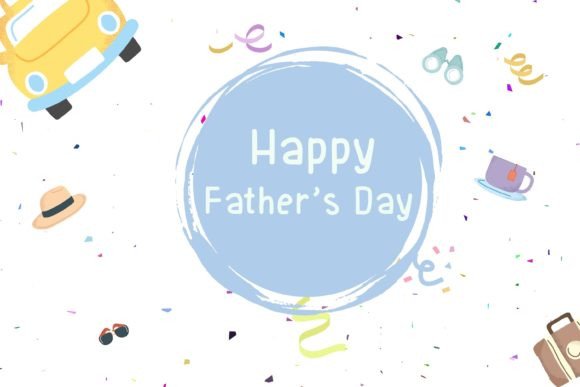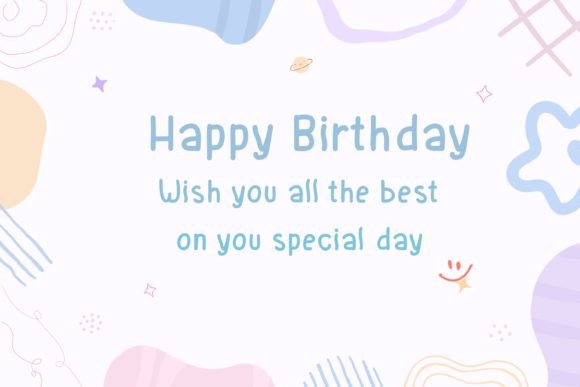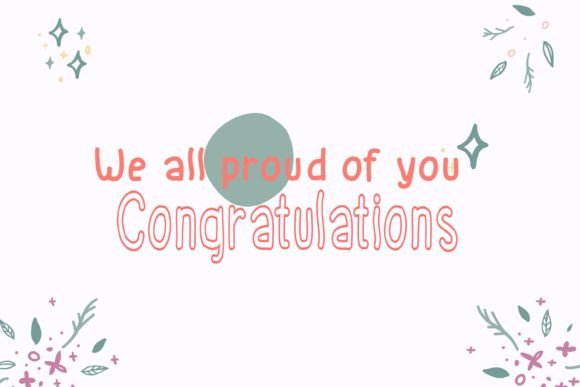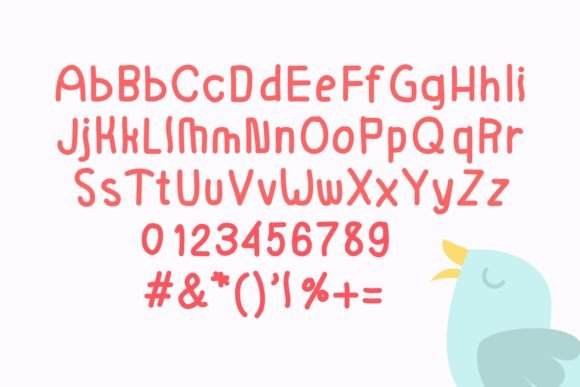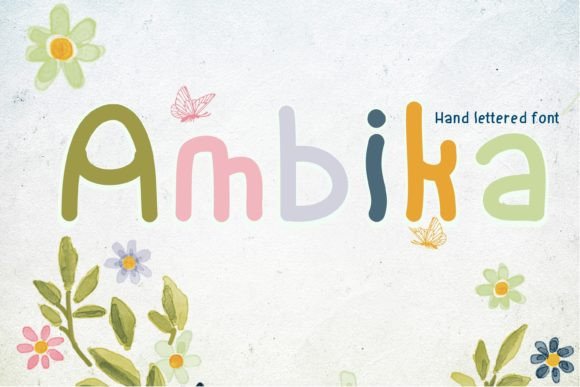
Introducing Ambika Font: The Quirky and Informal Handwritten Font for Your Designs
As a designer or crafter, you’re always on the lookout for the perfect font to add a personal touch to your creations. Look no further than Ambika Font, a simple, quirky, and informal handwritten font that’s sure to bring a realistic feel to your designs. In this article, we’ll dive into the world of Ambika Font, exploring its features, benefits, and uses, as well as provide tips on how to make the most of this versatile font.
What is Ambika Font?
Ambika Font is a modern, handwritten font that’s designed to mimic the look and feel of everyday handwriting. Its authentic, informal style makes it perfect for designers and crafters who want to add a personal touch to their work. With its quirky and playful vibe, Ambika Font is ideal for a wide range of design projects, from social media graphics and blog posts to invitations, packaging, and more.
Key Features of Ambika Font
- Simple and Quirky: Ambika Font features a simple, yet quirky design that’s sure to grab attention. Its unique character set and irregular strokes make it stand out from more traditional fonts.
- Informal and Handwritten: Ambika Font has an authentic, handwritten look that’s perfect for creating a personal and realistic feel in your designs.
- Versatile: Ambika Font is suitable for a wide range of design projects, from digital graphics to print materials.
- Easy to Read: Despite its quirky design, Ambika Font is easy to read, making it perfect for body text and headlines.
Benefits of Using Ambika Font
So, why choose Ambika Font for your designs? Here are just a few benefits of using this versatile font:
- Adds a Personal Touch: Ambika Font’s handwritten design adds a personal and realistic feel to your creations, making them stand out from more generic designs.
- Creates a Unique Look: Ambika Font’s quirky design ensures that your creations will have a unique look that’s sure to grab attention.
- Perfect for Branding: Ambika Font is ideal for branding projects, such as logos, business cards, and packaging, where a personal touch is essential.
- Easy to Pair: Ambika Font pairs well with a wide range of fonts, making it easy to create a cohesive look for your designs.
Tips for Using Ambika Font
Here are a few tips for getting the most out of Ambika Font:
- Use it for Headlines and Body Text: Ambika Font is suitable for both headlines and body text, making it a versatile addition to your design toolkit.
- Experiment with Colors: Ambika Font looks great in a wide range of colors, so don’t be afraid to experiment and find the perfect hue for your design.
- Pair it with Other Fonts: Ambika Font pairs well with a wide range of fonts, so try pairing it with other fonts to create a unique look.
- Use it for Digital and Print Materials: Ambika Font is suitable for both digital and print materials, making it a great addition to your design toolkit.
In conclusion, Ambika Font is a simple, quirky, and informal handwritten font that’s perfect for designers and crafters who want to add a personal touch to their creations. With its authentic look and versatile design, Ambika Font is ideal for a wide range of design projects, from social media graphics and blog posts to invitations, packaging, and more. Whether you’re looking to create a unique look or simply want to add a personal touch to your designs, Ambika Font is a great choice.